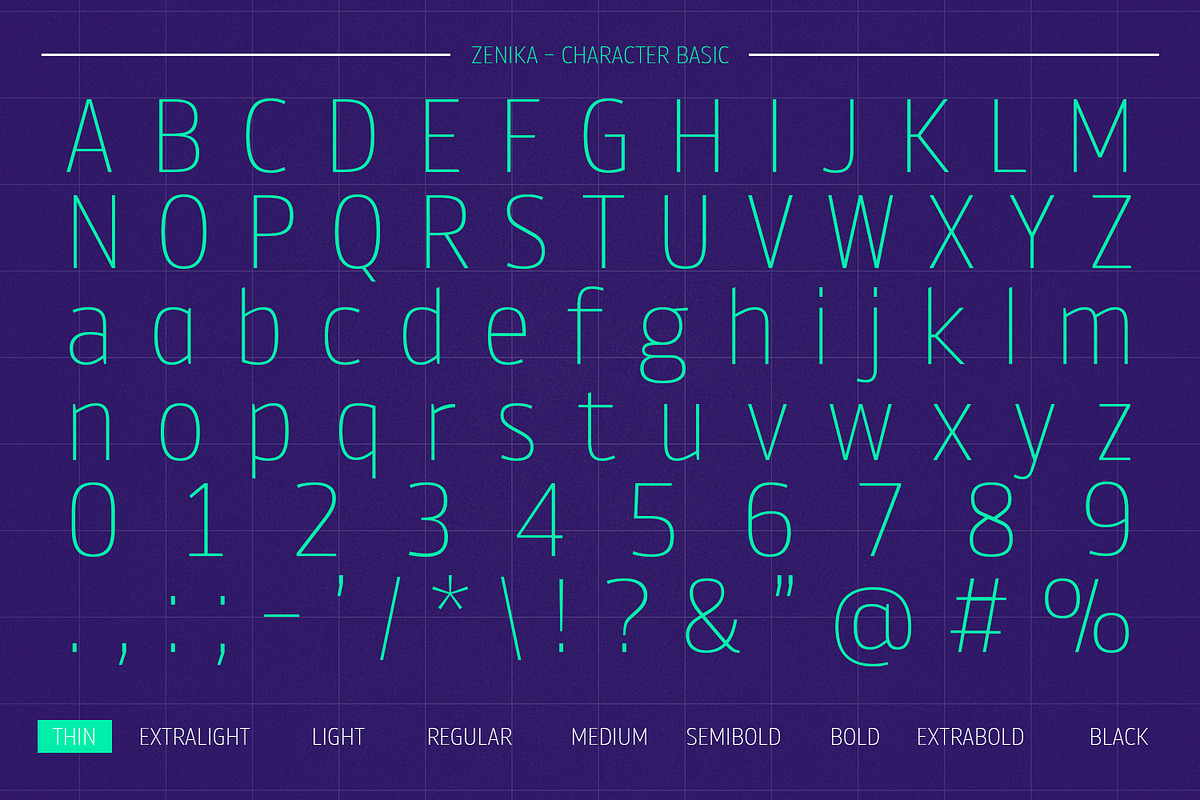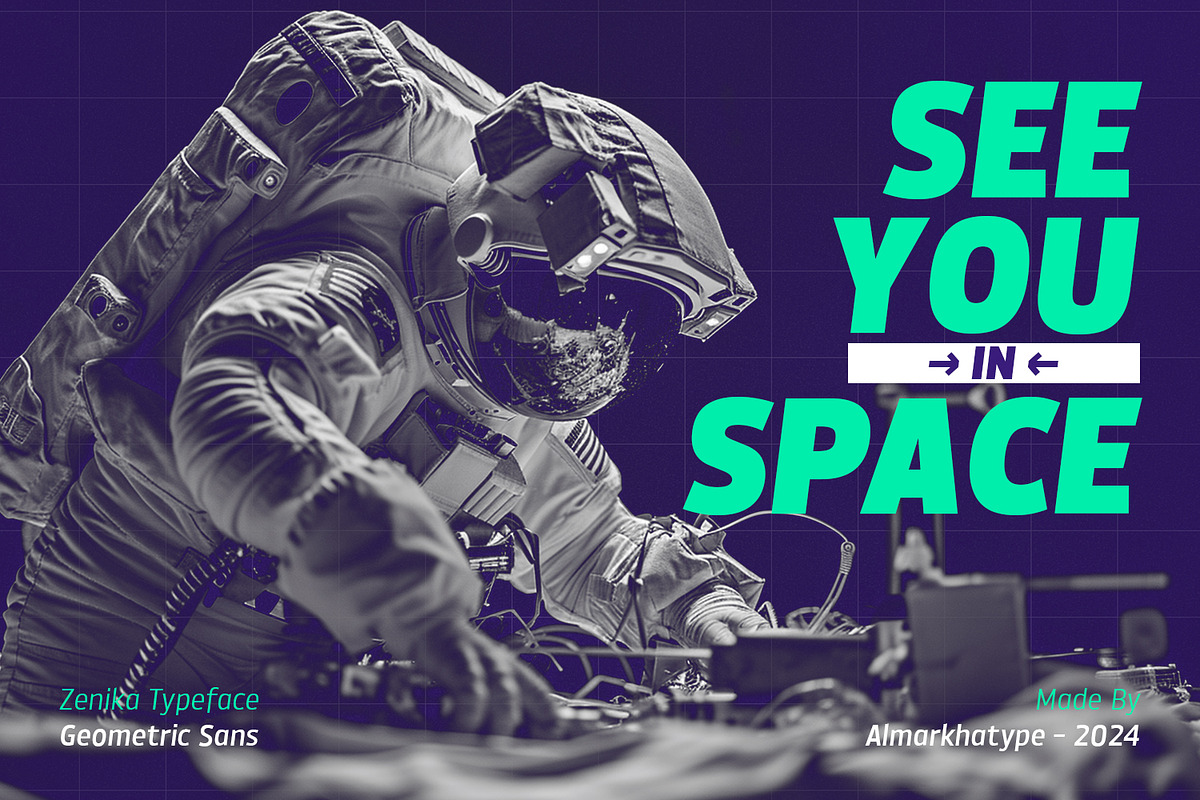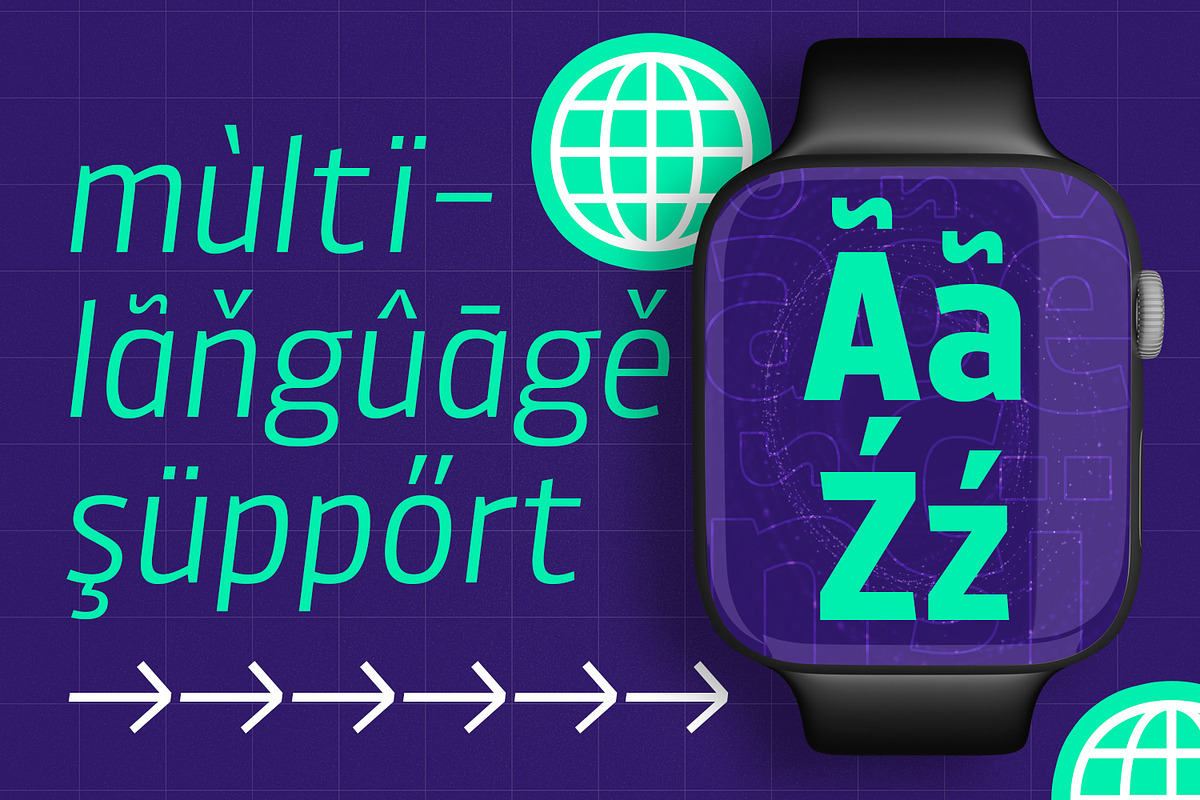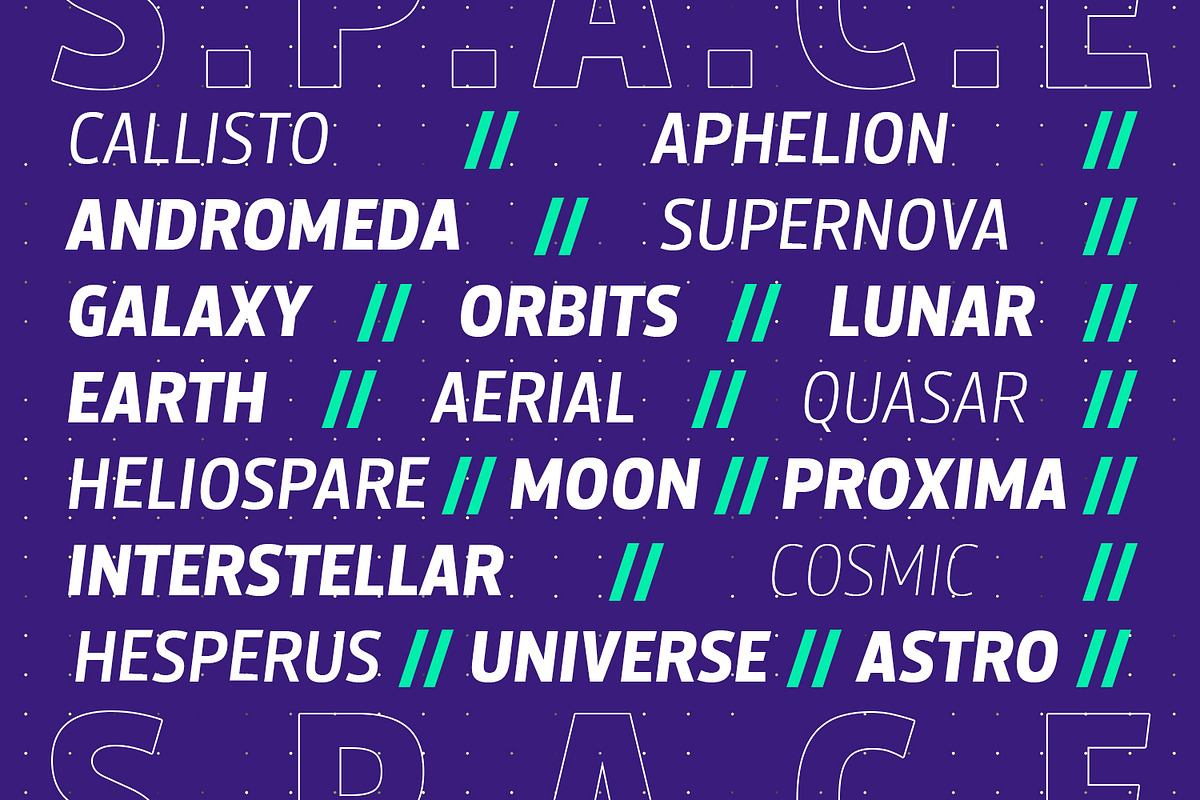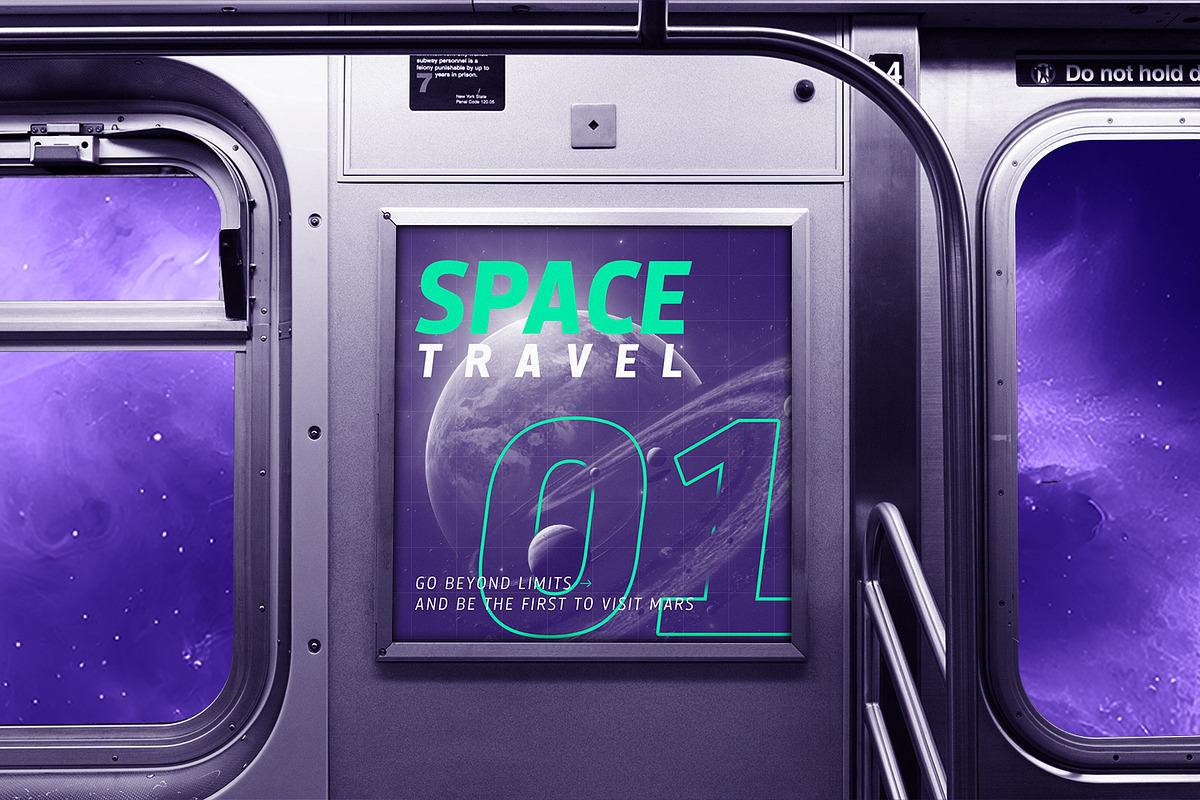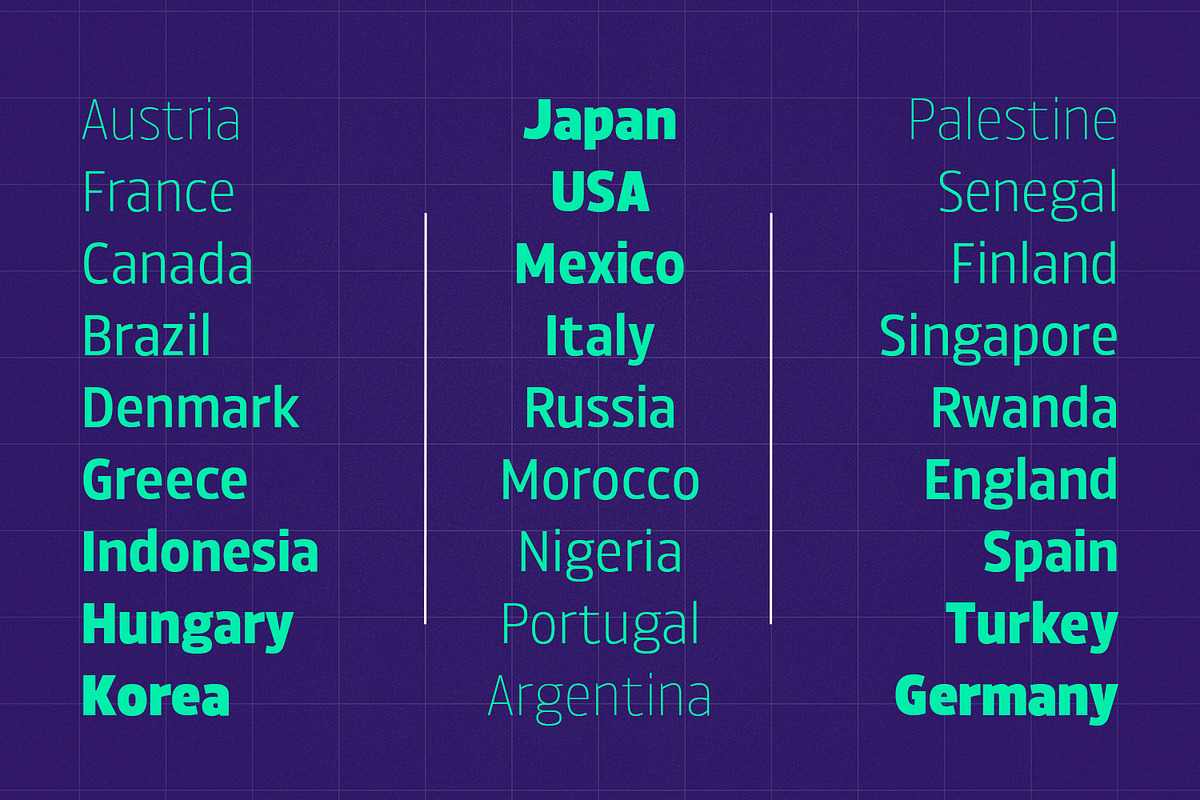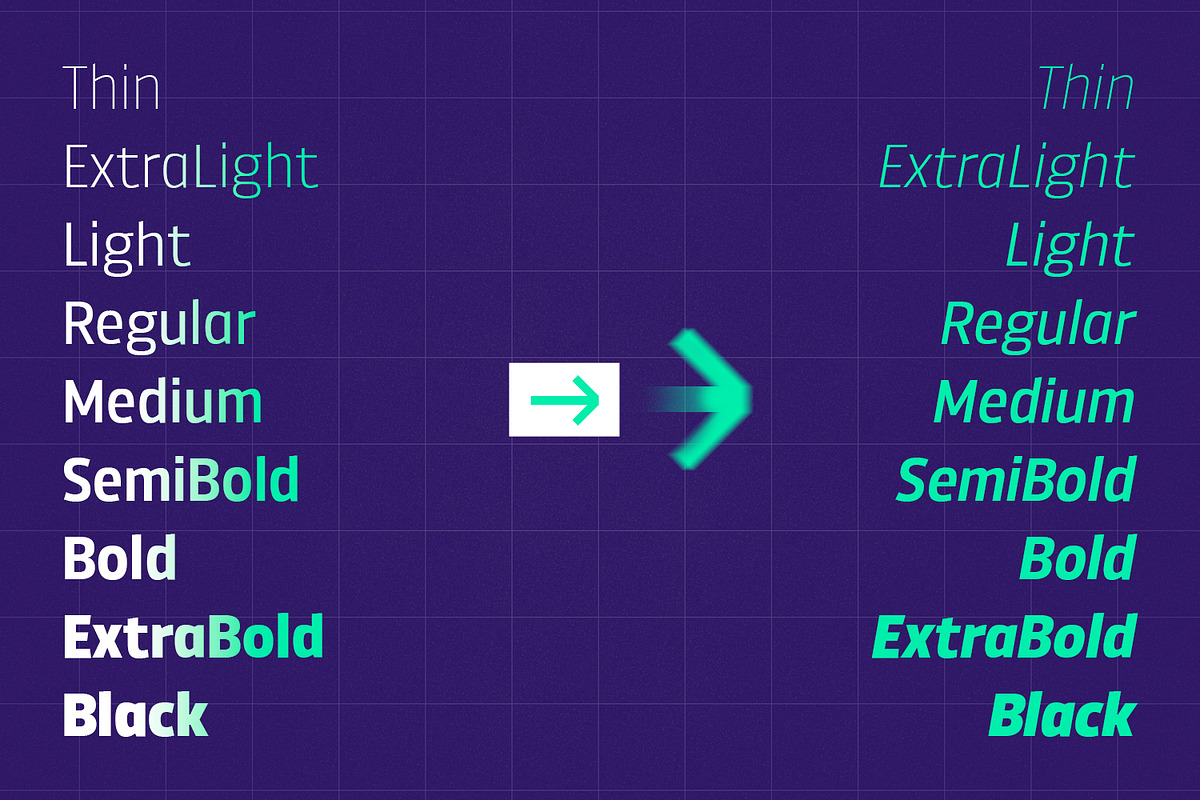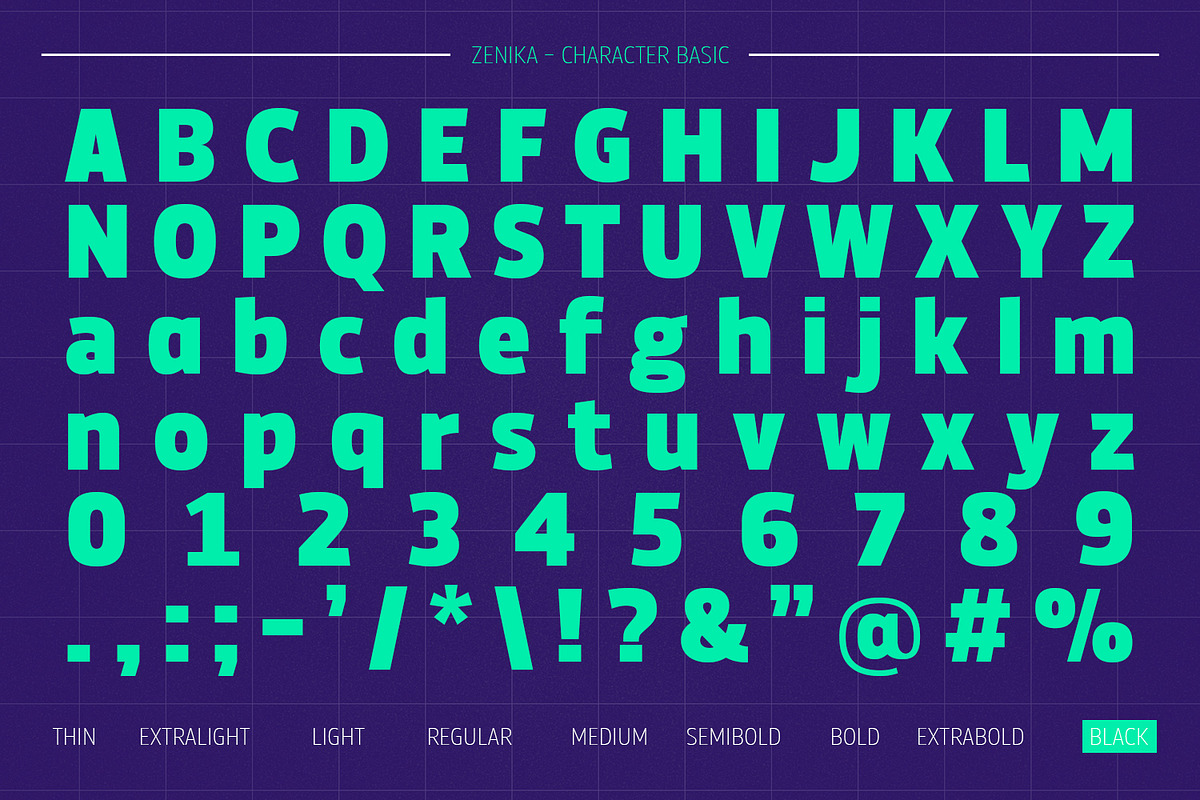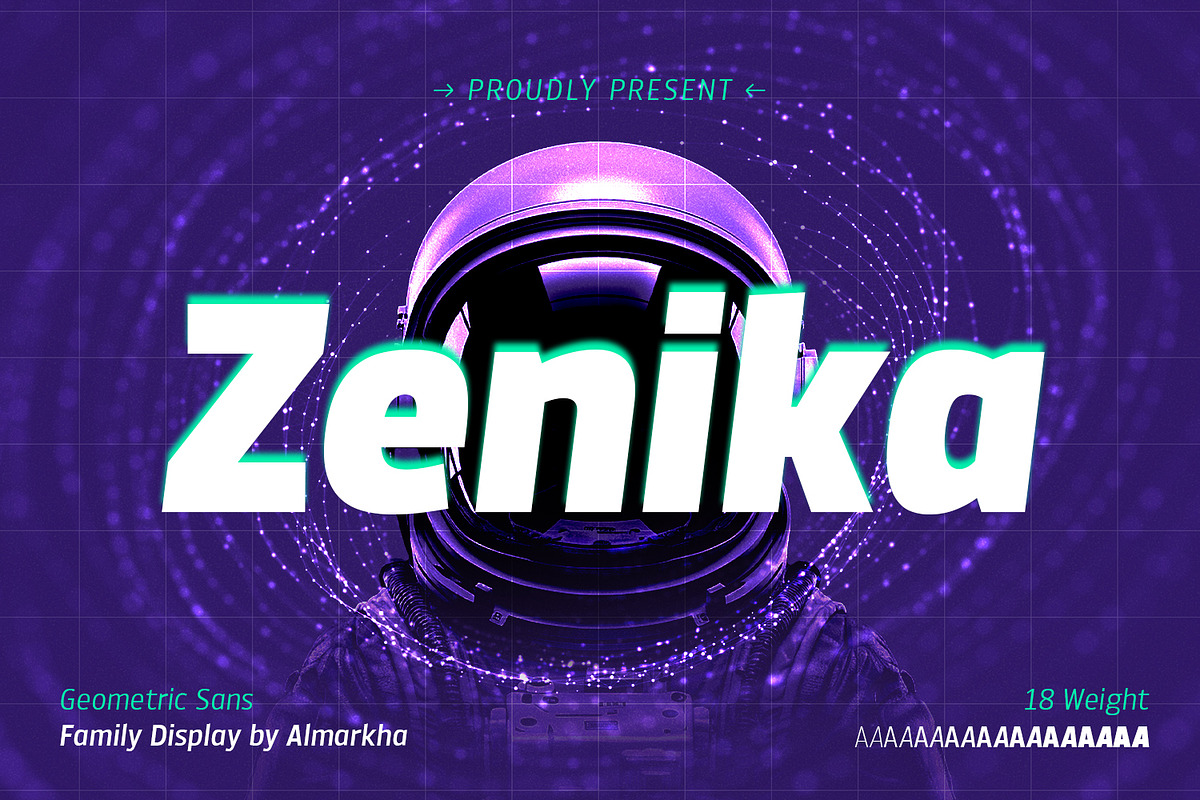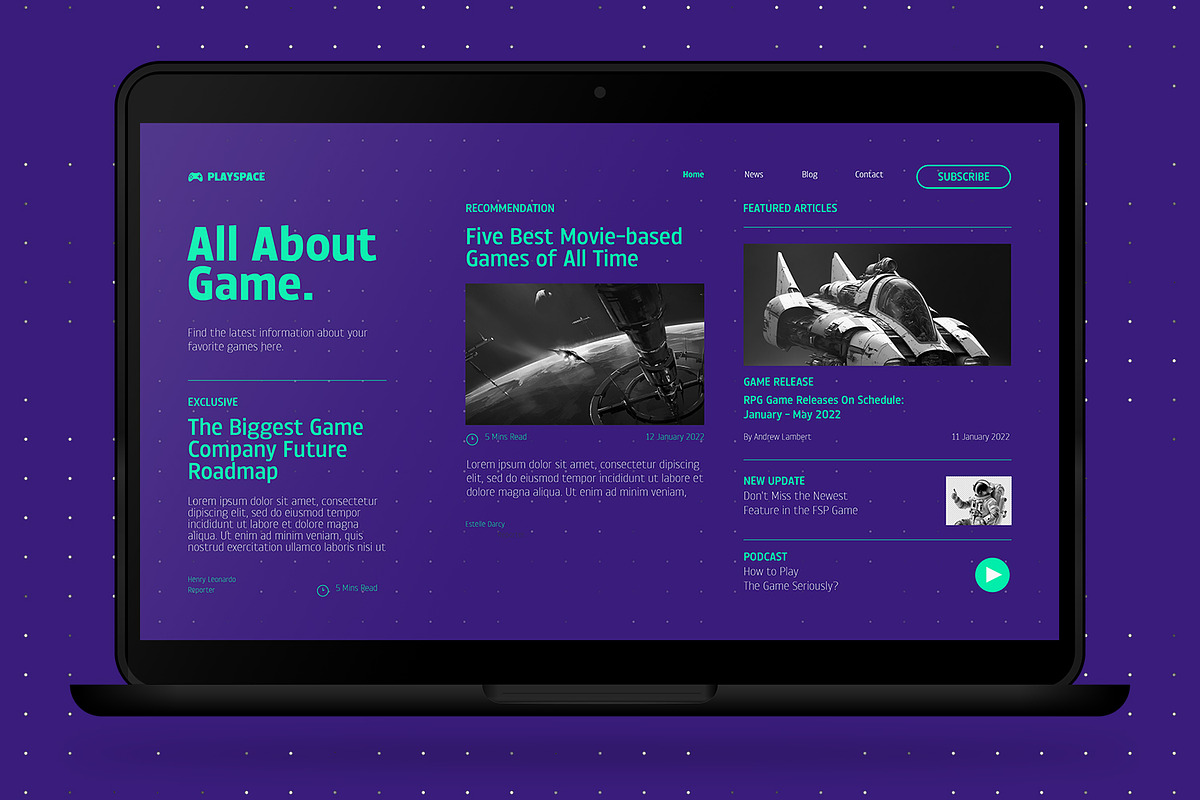
Zenika – Geometric Sans
Introducing Zenika, a sleek and modern geometric sans typeface designed with versatility in mind. With its clean lines and balanced proportions, Zenika offers a sophisticated look suitable for a wide range of design projects.
This typeface features 18 styles, 9 weights, and includes italics, providing you with ample options to achieve the perfect balance between elegance and impact. From light and airy to bold and commanding, Zenika offers flexibility to suit various design needs.
Additionally, Zenika comes with variable font support, allowing you to fine-tune the weight and width of the font to your precise specifications. Whether you’re creating headlines, body text, logos, posters, or web graphics, Zenika ensures a seamless and polished result every time.
With its geometric simplicity and variable font capabilities, Zenika is the perfect choice for designers seeking a modern and adaptable typeface for their projects. Elevate your designs with the timeless appeal of Zenika and make a lasting impression.
- Ligatures glyphs
- Alternate glyphs